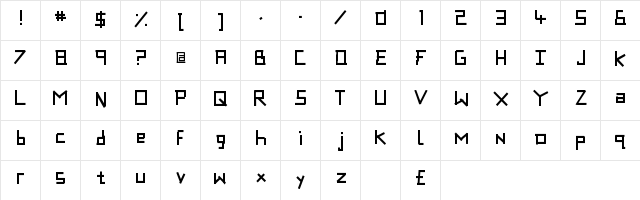
Magic Tape Regular
Design Context for Magic Tape Typeface
Magic Tape offers clean, dependable letterforms without strong stylistic allegiance, making it a practical choice for designers who need flexibility.